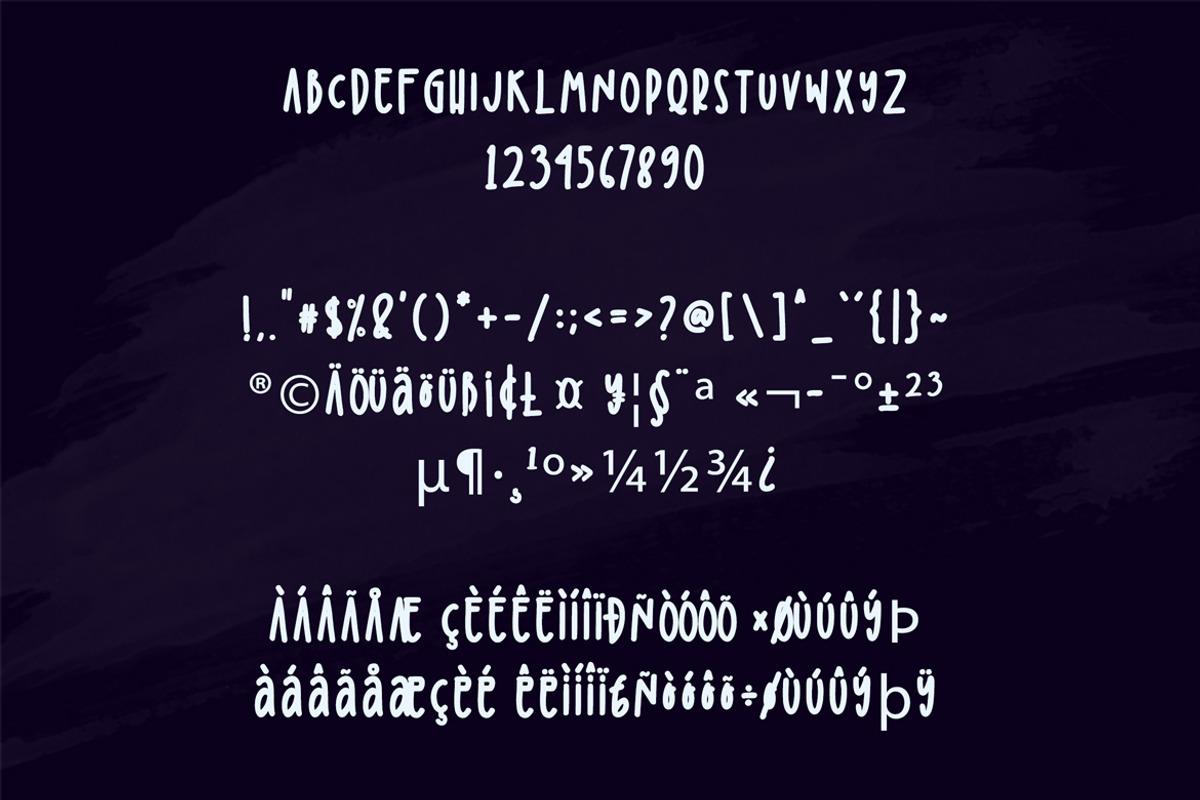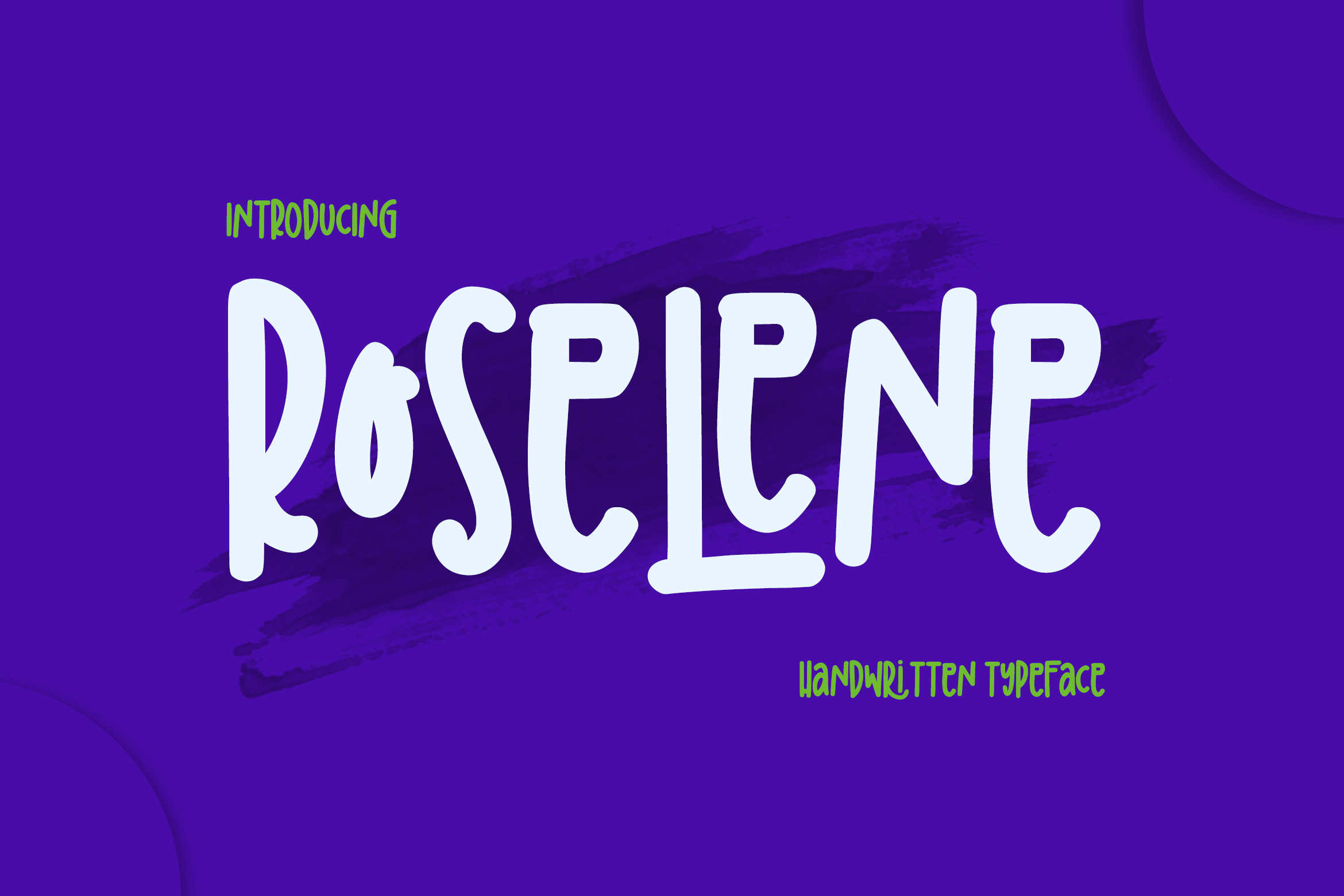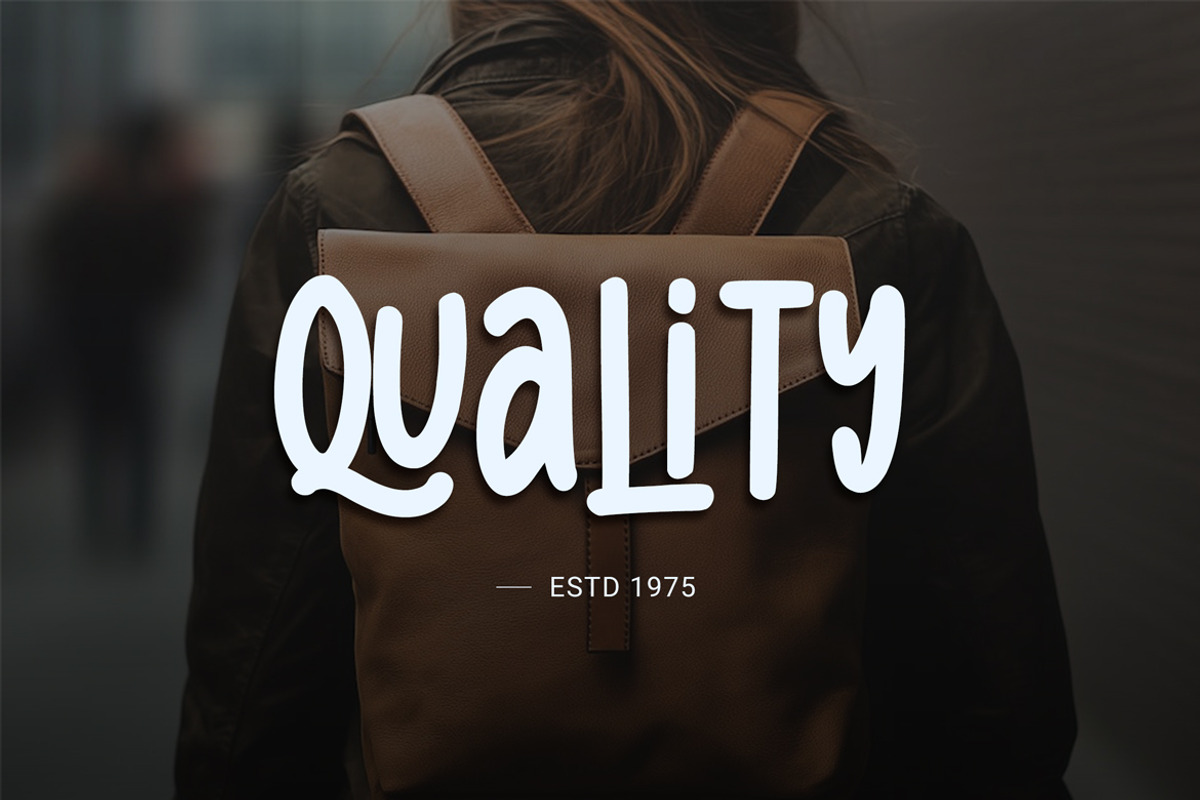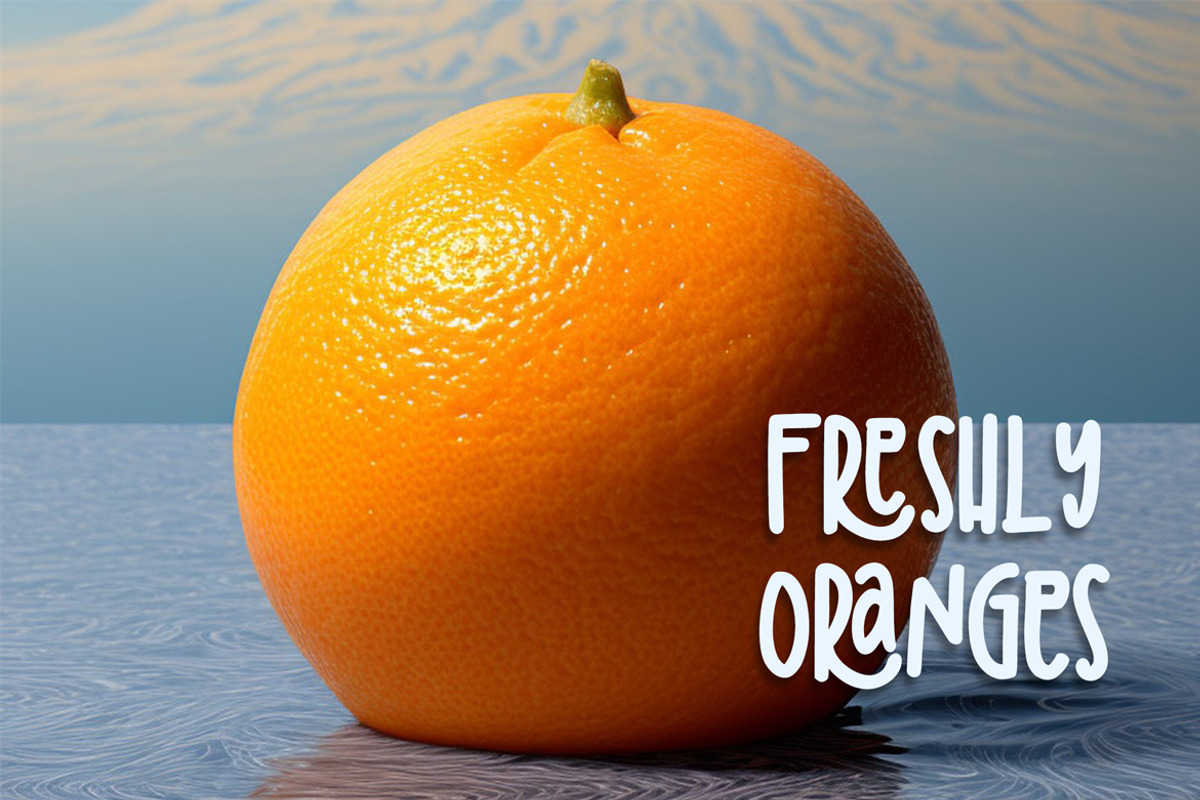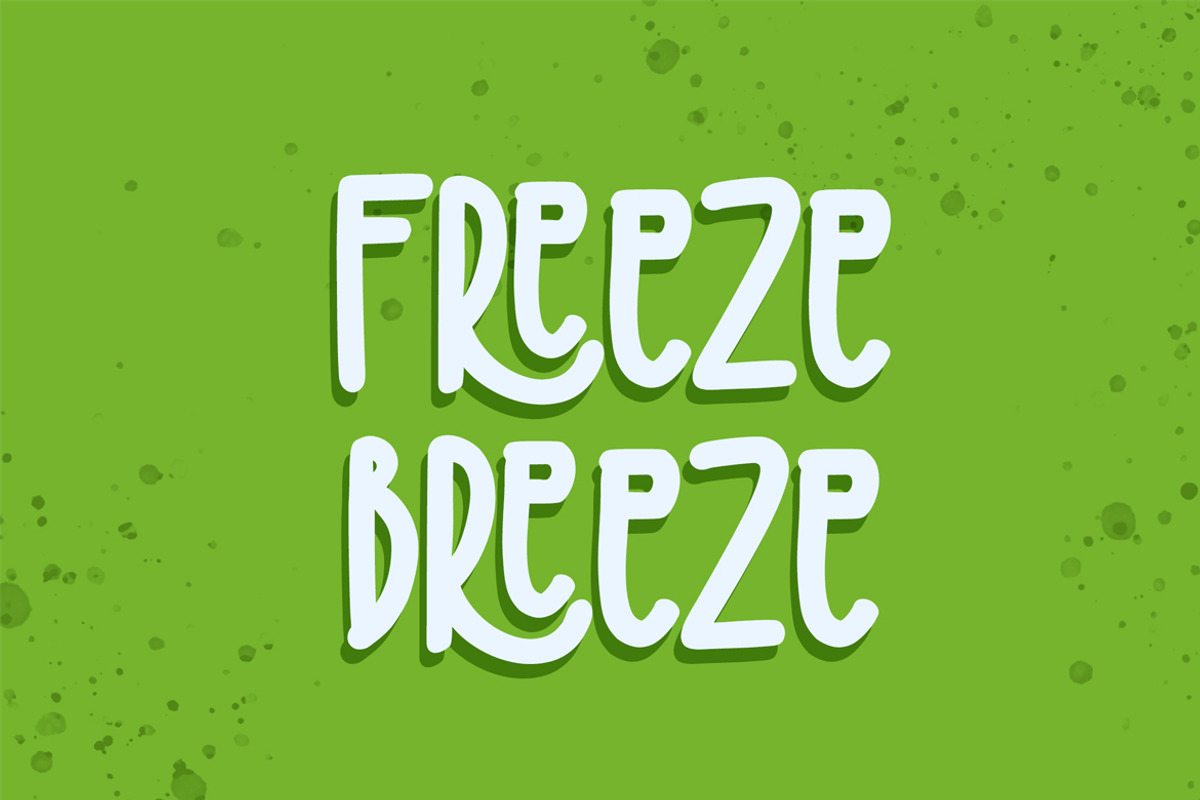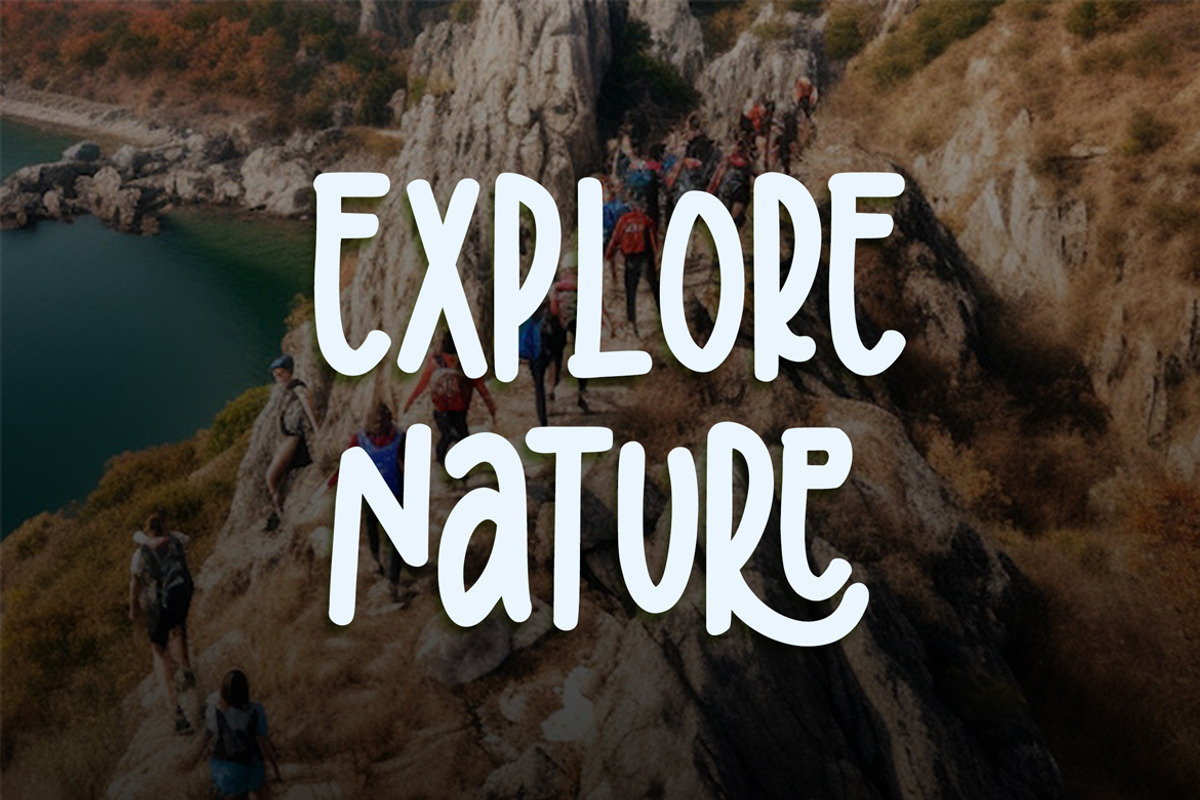
Roselene Playfull Handwritten Font
Roselene is a charming handwritten display font that brings a touch of elegance and personality to any design. With its smooth curves and natural flow, this font is perfect for branding, invitations, social media posts, and more. Whether you're creating stylish logos or eye-catching headlines, Roselene adds a unique, handcrafted feel to your projects.